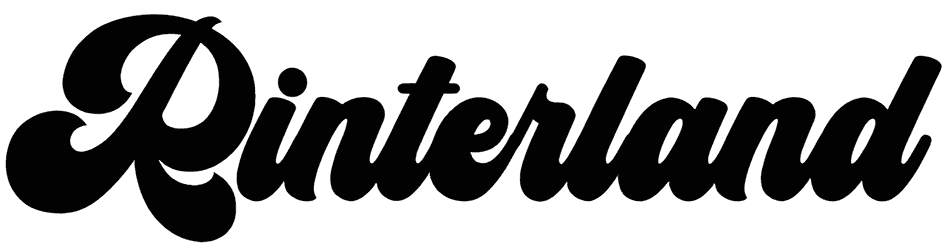
Rinterland Font
There’s nothing wrong with taking a step back sometimes, especially if it means using a retro font as adorable as Rinterland in your text. You can easily get all the attention you want from the crowd by spelling out your words in such fun and caramel-like letters, ornamented with chubby serifs and swashes.
If you want your next vintage poster designs, diner signs, and clothing tag projects to go down more smoothly than ever, this font is all yours.
Rinterland is a Vintage retro font. Inspired from retro typography and lettering in the 70’s and 80’s combine with bold typography style.